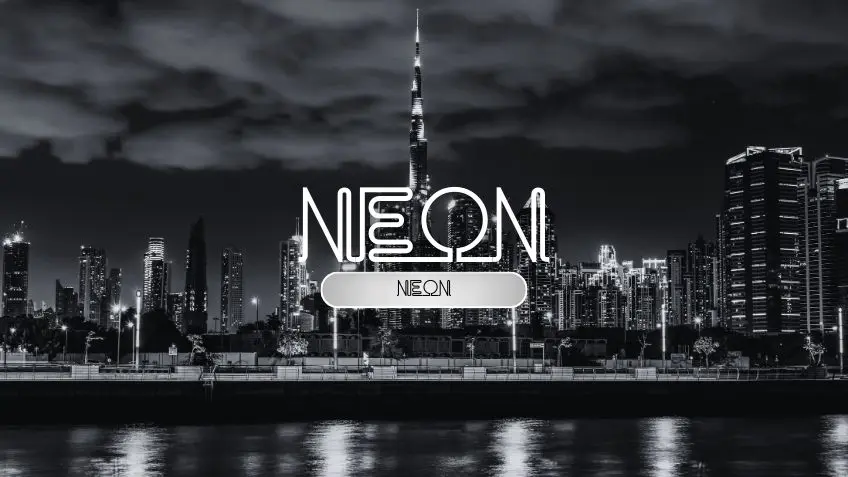
The font Neon Regular, designed by Fenotype, falls under the Display category & Neon font family. Its smooth, flowing letterforms make it a versatile choice for projects that require both elegance and readability. Neon is particularly well-suited for Social Media, Branding and Logos, Packaging and product design, Greeting cards, invitations, and posters and Video Game UI and Graphics. With its balance of simplicity and decorative appeal, this font brings a polished touch to both personal and professional designs.